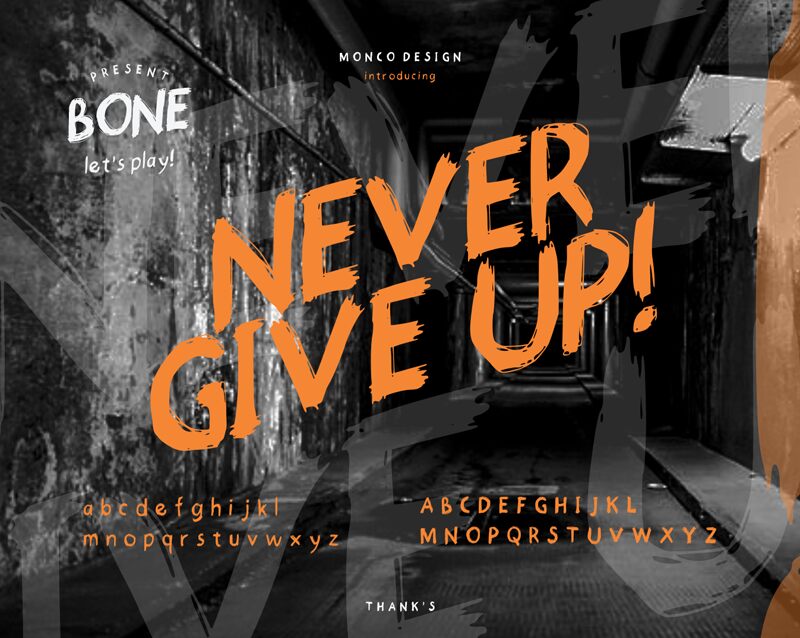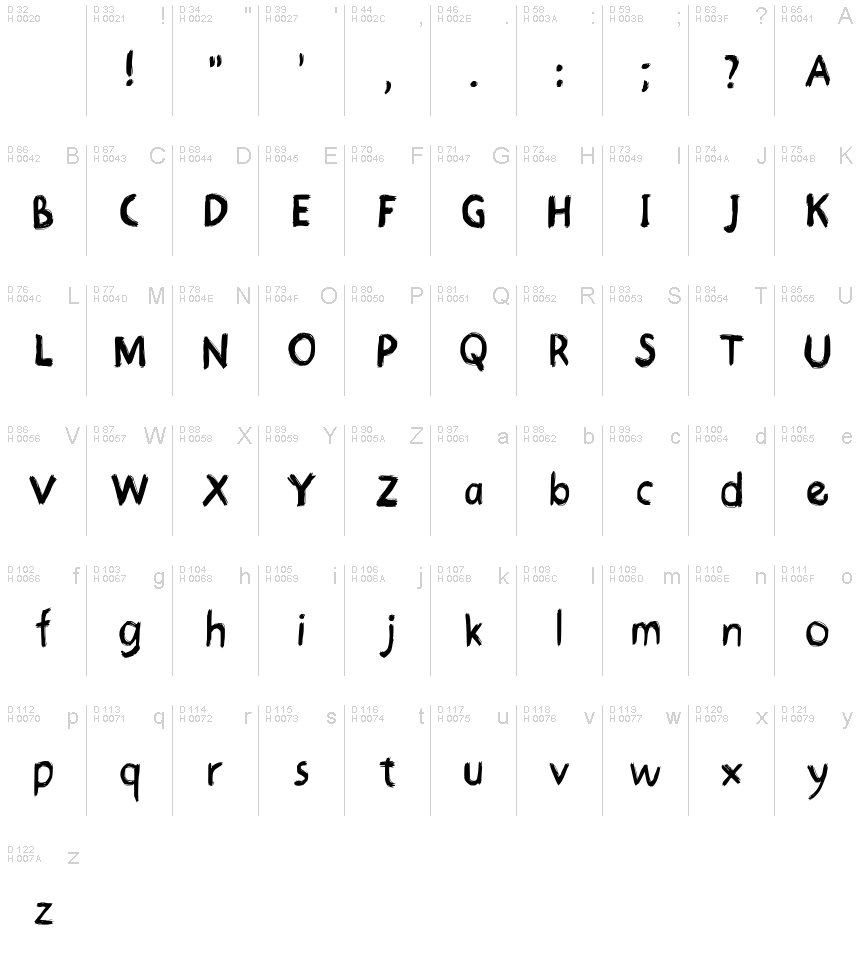
Bone Regular
Bone, a distinctive creation by moncotok, stands out with its semi-light weight and trash script style that exudes a raw and edgy aesthetic. The deliberate irregularities and expressive strokes of Bone give it an authentic hand-drawn appearance, perfect for designers looking to inject a touch of rebellious flair into their projects.
Its unique character makes it ideal for music industry graphics, alternative event posters, or any artistic endeavor that demands a font with attitude and individuality. With Bone, your creative work won't just speak; it will shout with style.